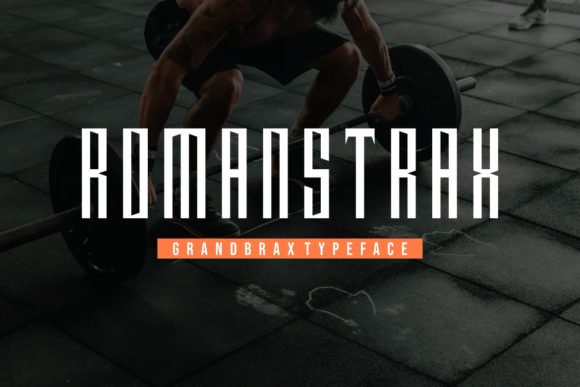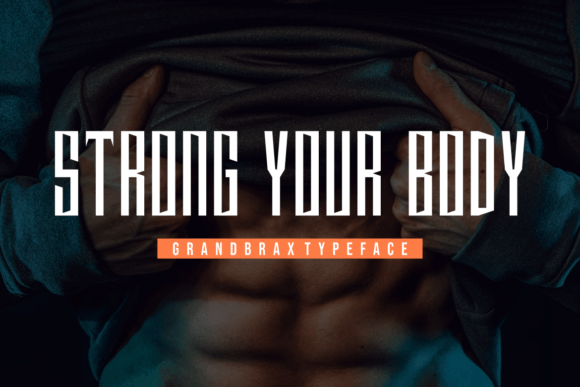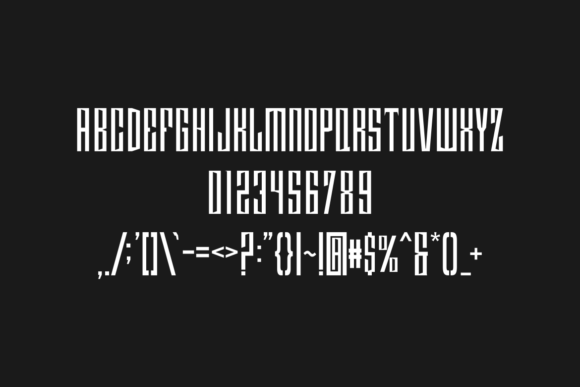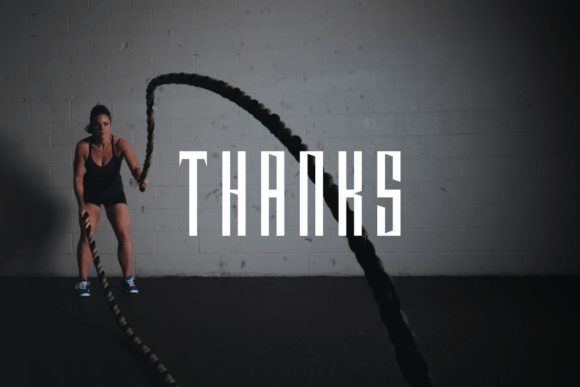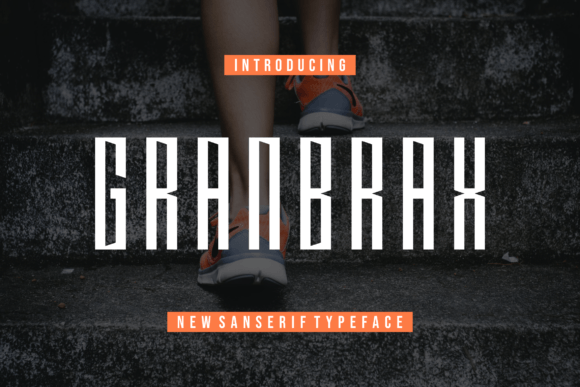
Discover the Modern Elegance of Granbrax Font
In the vast universe of typography, a new star has emerged, captivating the attention of designers and crafters alike. Granbrax Font, a modern Sans Serif typeface, has quickly become a favorite among creative professionals. Its clean lines, elegant simplicity, and versatility make it an ideal choice for a wide range of branding projects. From logos and t-shirt printing to esports and beyond, Granbrax Font is redefining the way we approach typography.
The Birth of Granbrax Font
Granbrax Font was designed with one goal in mind: to create a typeface that embodies the spirit of modern design while being highly adaptable. Its sleek, sans-serif design ensures that it remains legible across various mediums, from digital screens to print. This versatility is key to its appeal, making it a go-to font for designers looking for a reliable and stylish option.
Key Features of Granbrax Font
So, what makes Granbrax Font stand out from the crowd? Here are a few of its key features:
- Modern Aesthetic: Granbrax Font boasts a contemporary look that fits perfectly with today’s design trends. Its clean and simple design makes it instantly recognizable.
- Versatility: Whether you’re working on a logo, a t-shirt design, or an esports project, Granbrax Font adapts seamlessly. Its neutral appearance allows it to blend in while still making a statement.
- Legibility: One of the font’s strongest assets is its readability. Even at smaller sizes, Granbrax Font remains clear and easy to read, making it perfect for a variety of applications.
- Customizability: For designers looking to push the boundaries, Granbrax Font offers plenty of room for customization. Whether you’re adjusting the weight, spacing, or color, this font can be tailored to fit your project’s needs.
Applications of Granbrax Font
The applications of Granbrax Font are as diverse as its features. Here are some of the most popular uses:
- Logo Design: A logo is often the first impression a brand makes on its audience. Granbrax Font, with its modern and clean appearance, is perfect for creating a professional and memorable logo.
- T-Shirt Printing: For crafters and designers who create custom apparel, Granbrax Font offers a stylish and legible option. Its clarity ensures that your designs look great on a t-shirt, hoodie, or any other garment.
- Esports: The esports industry is all about speed, precision, and style. Granbrax Font fits right in with its modern aesthetic and high legibility, even at smaller sizes.
- Digital Media: From social media posts to website headers, Granbrax Font performs exceptionally well in digital environments. Its clean lines and simplicity make it a great choice for digital content.
Why Choose Granbrax Font?
With so many typefaces available, why should Granbrax Font be your go-to choice? The answer lies in its perfect blend of style, versatility, and functionality. Here are a few compelling reasons:
- Time-Saving: Granbrax Font’s versatility means you can use it across multiple projects without needing to switch fonts. This saves time and ensures consistency across your branding.
- Professional Look: The font’s modern design gives any project a professional edge. Whether you’re a seasoned designer or a DIY enthusiast, Granbrax Font helps you achieve a polished look.
- Community Support: As a popular typeface, Granbrax Font is supported by a community of designers and developers. This means there are plenty of resources available, from tutorials to forums, to help you get the most out of the font.
Granbrax Font is more than just a typeface; it’s a design companion that offers both style and substance. Its modern sans-serif design, versatility, and legibility make it an excellent choice for a wide range of projects. Whether you’re designing a logo, creating custom apparel, or working on an esports project, Granbrax Font is sure to enhance your work. As the design world continues to evolve, having a reliable and stylish font like Granbrax Font in your toolkit is a definite advantage. So, why wait? Explore the possibilities with Granbrax Font today and discover a new level of typographic excellence.